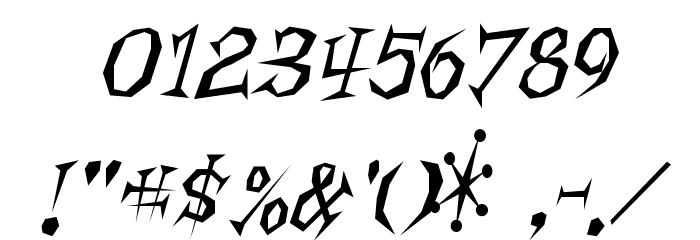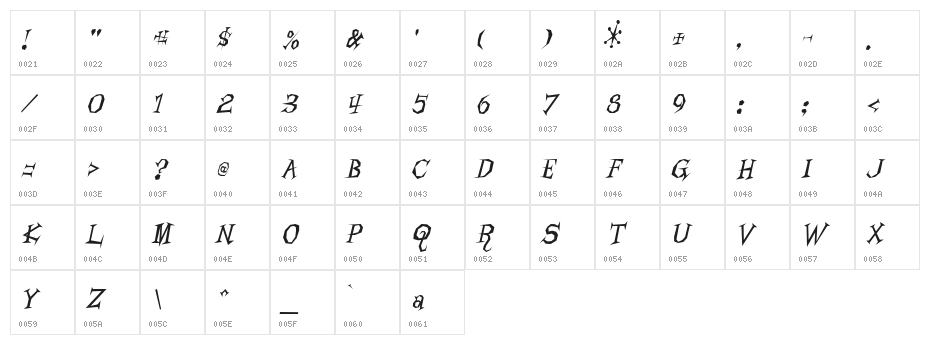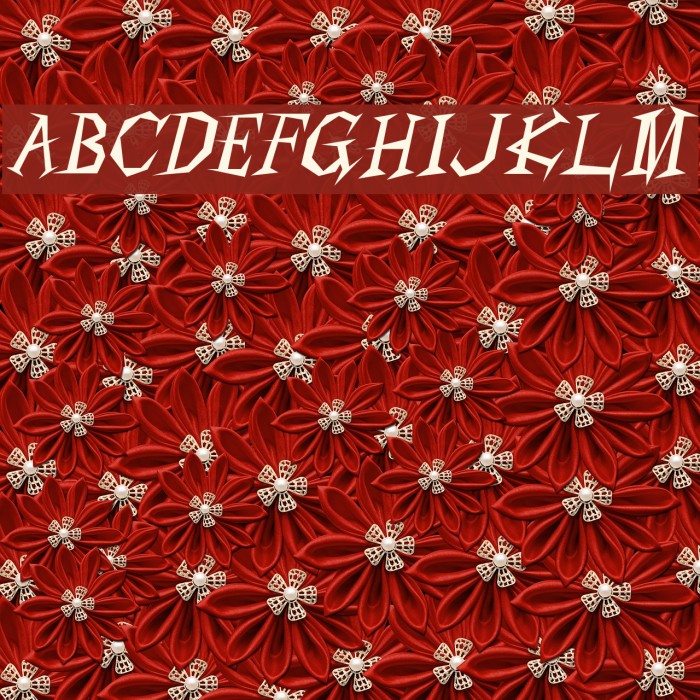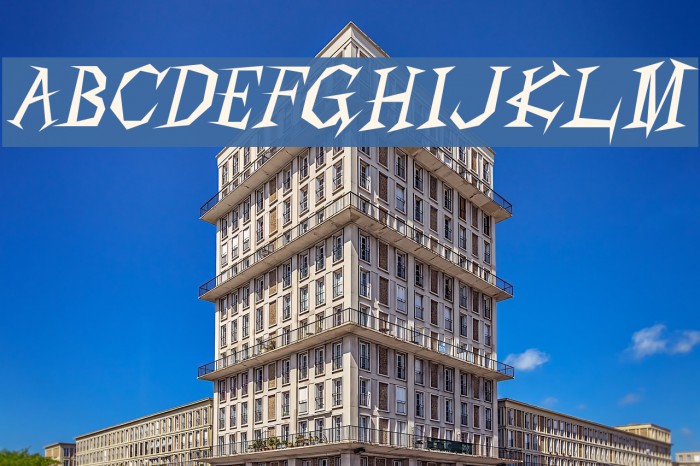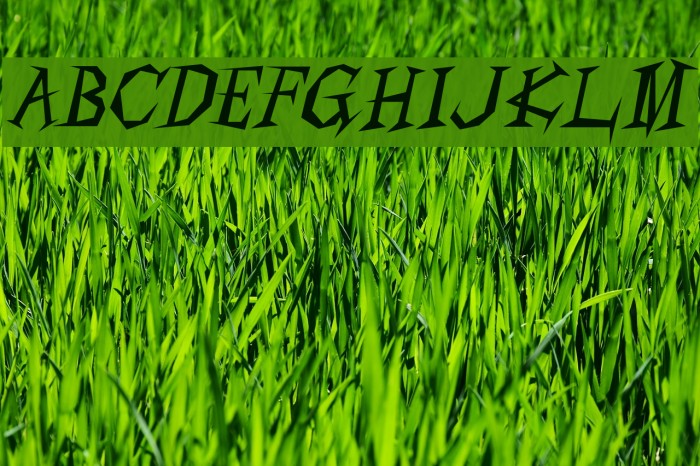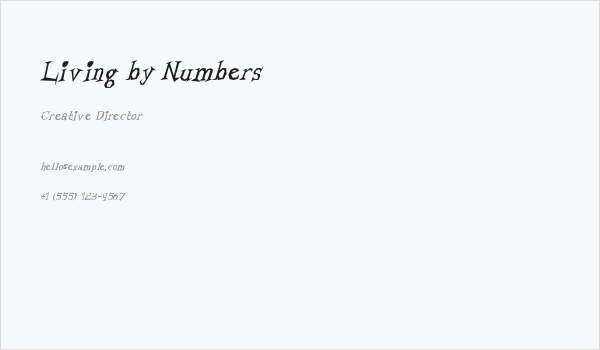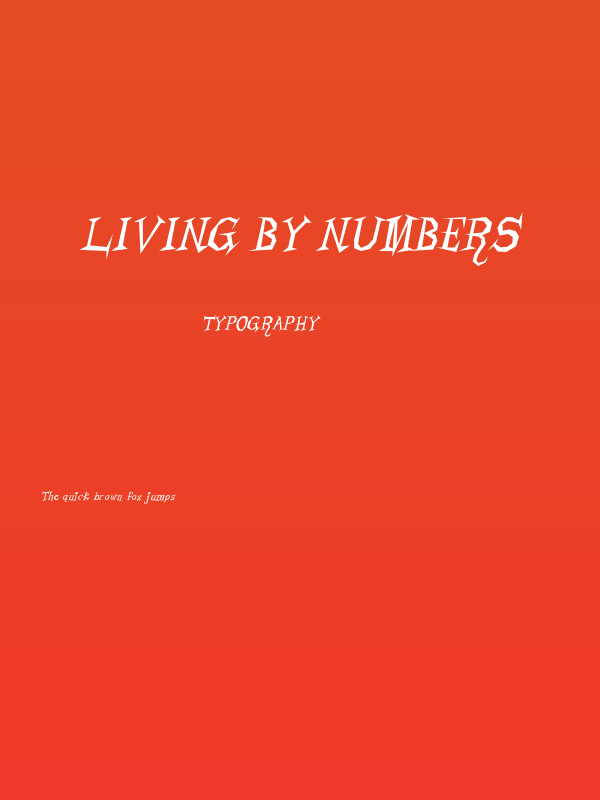
Living by Numbers Font
Living by Numbers Description
This font features a bold and edgy design with sharp, angular lines and a dynamic, energetic style. The uppercase letters are particularly striking, with exaggerated serifs and a sense of movement that suggests a rebellious or avant-garde aesthetic. The lowercase letters maintain this angularity, creating a cohesive look across the alphabet. Numbers and special characters are similarly styled, ensuring consistency throughout. The overall appearance is both modern and slightly aggressive, making it ideal for projects that require a strong visual impact.
| Overall Style | Modern, Edgy |
| Proposed Projects | Ideal for music album covers, edgy branding, posters, and any project needing a strong, rebellious aesthetic. |